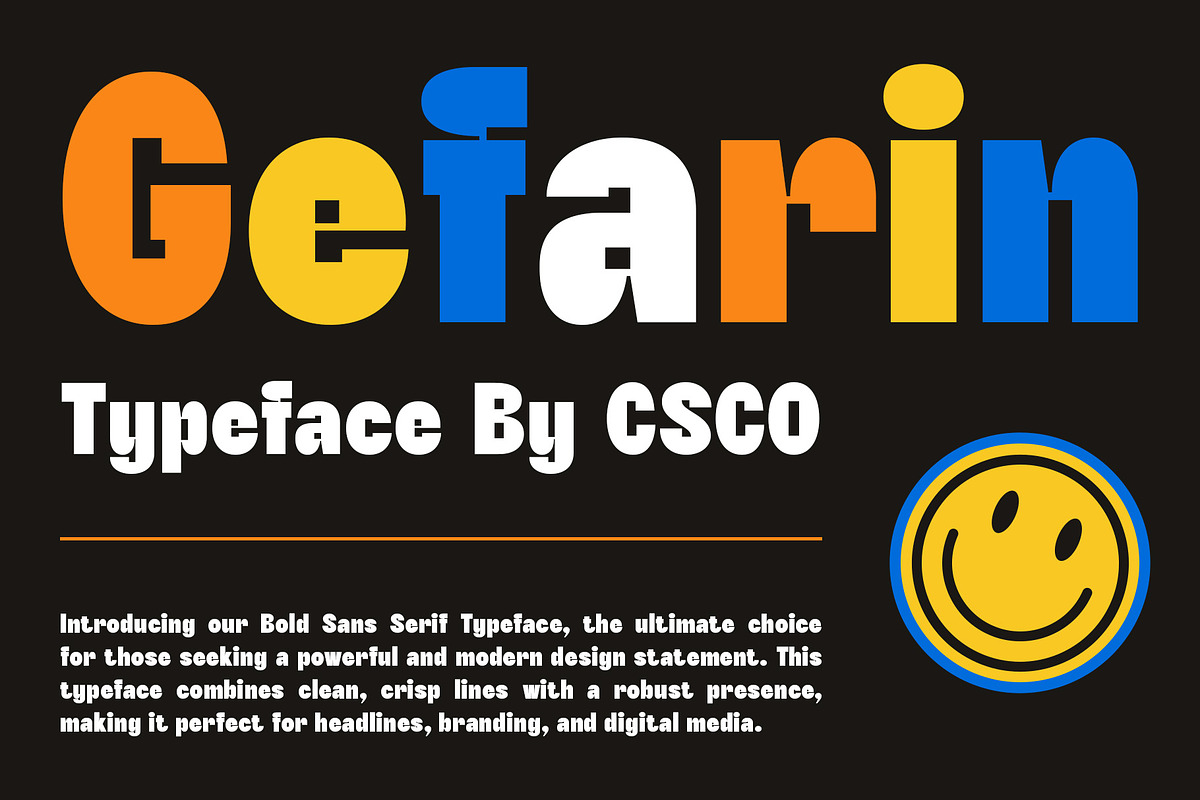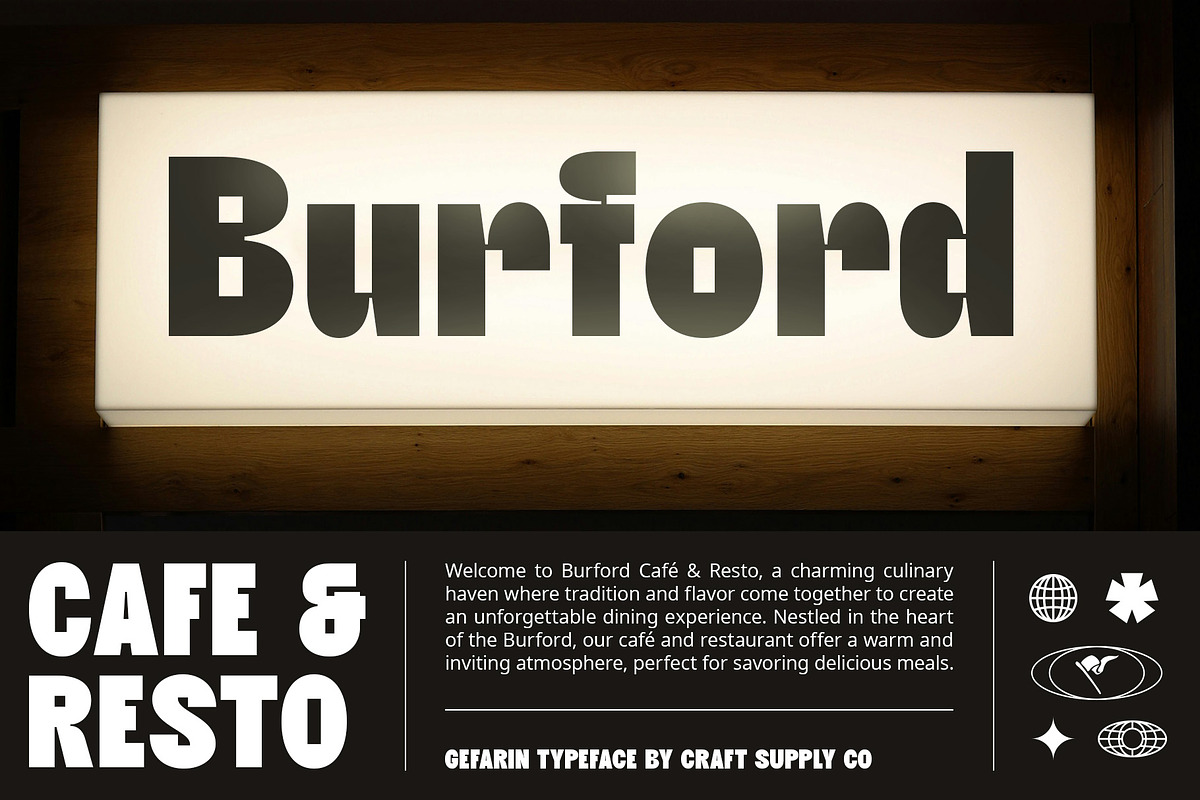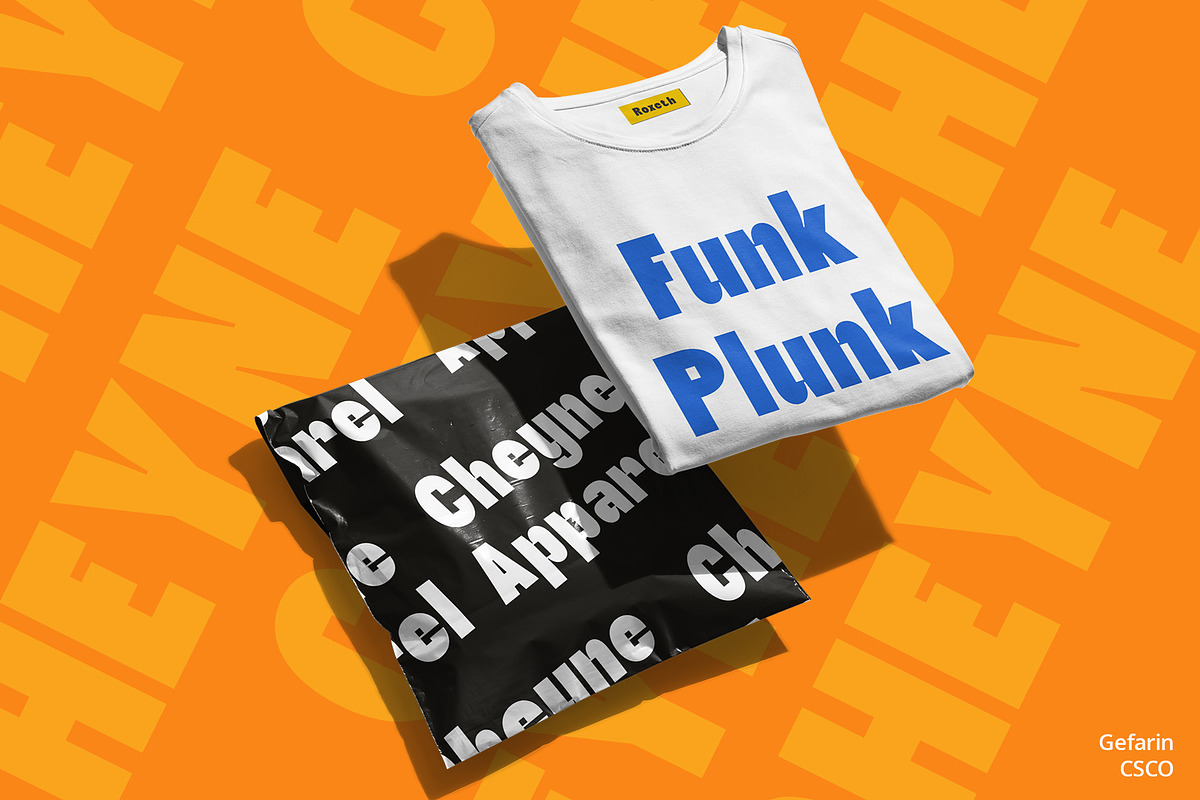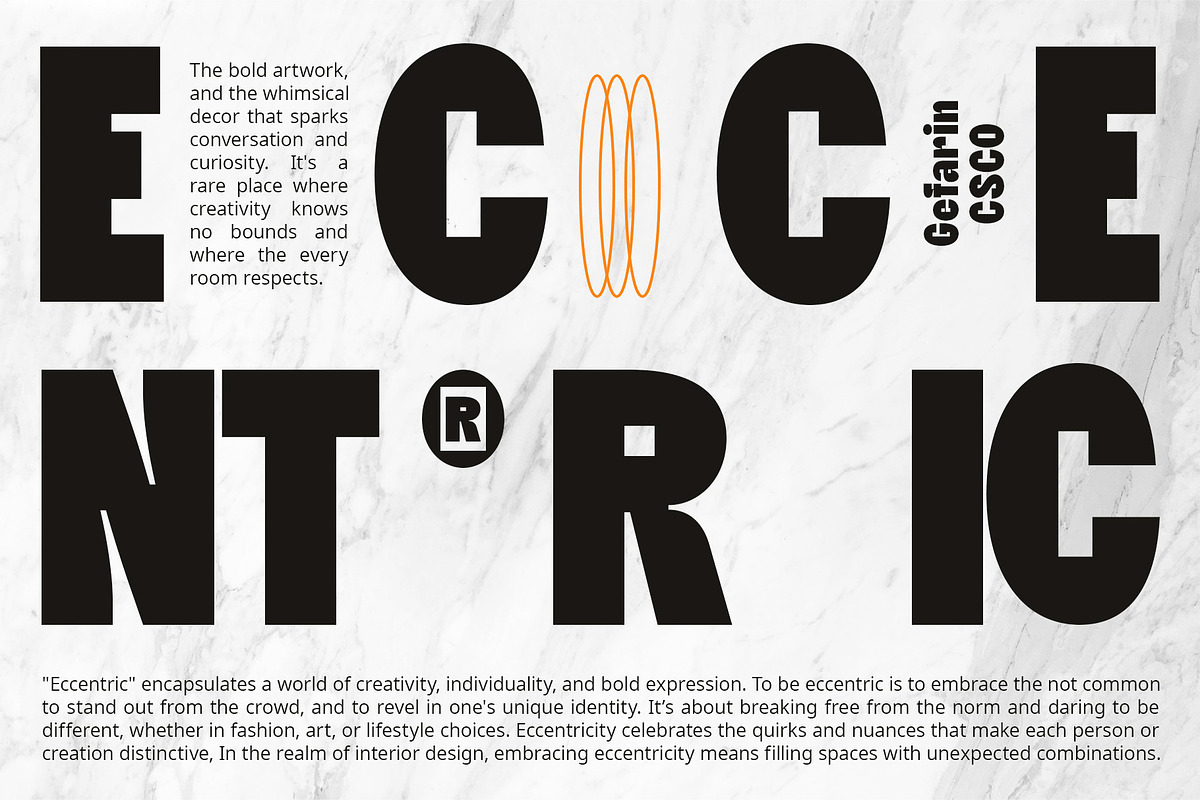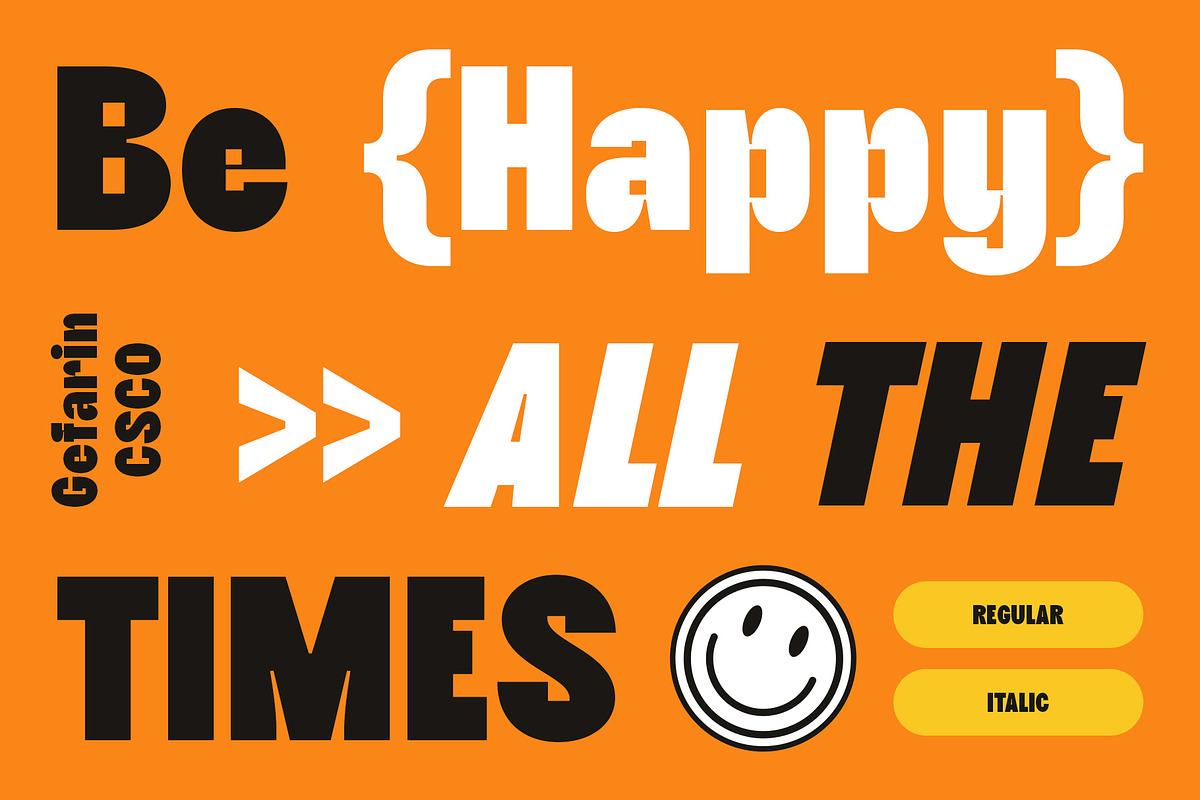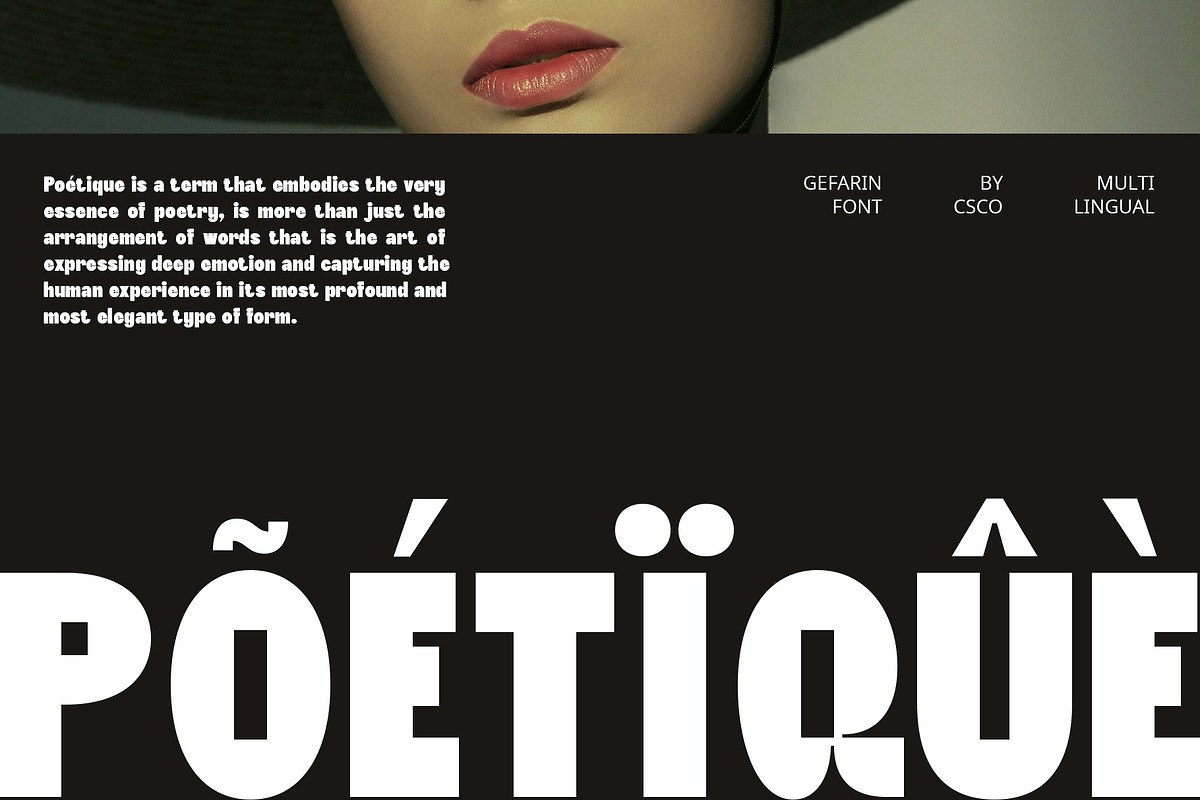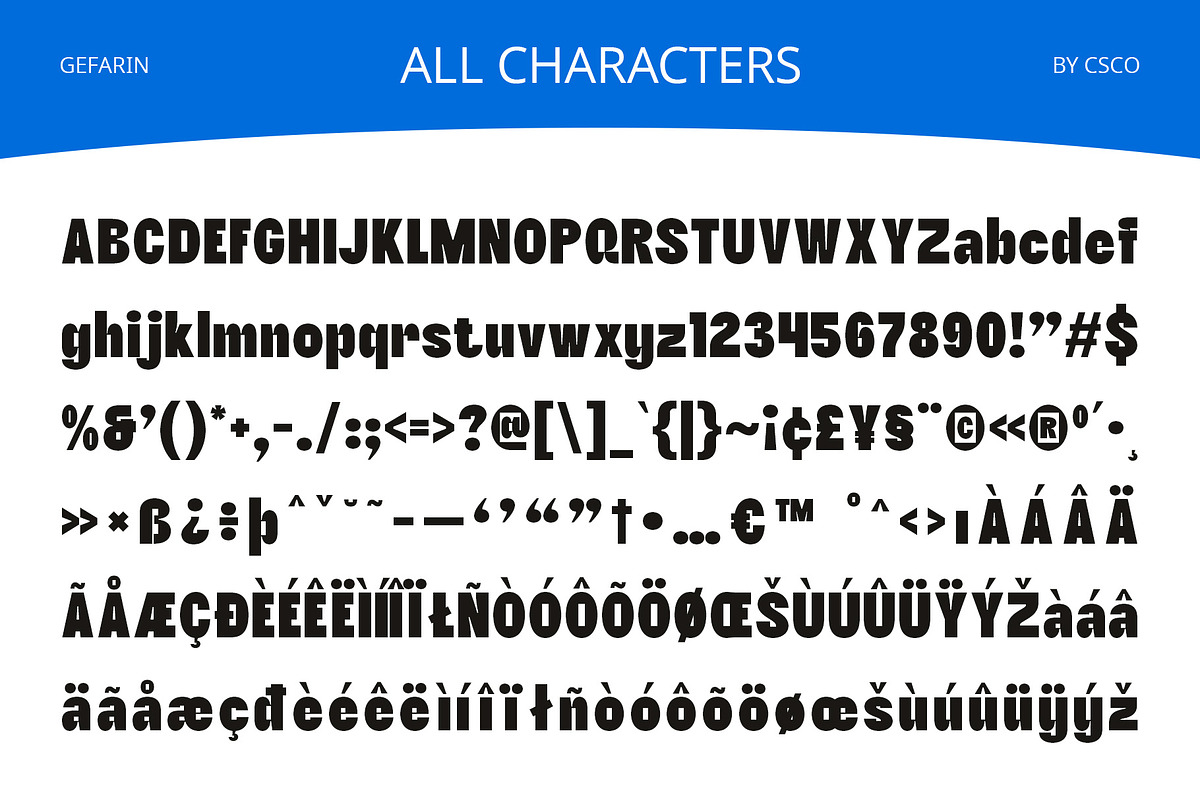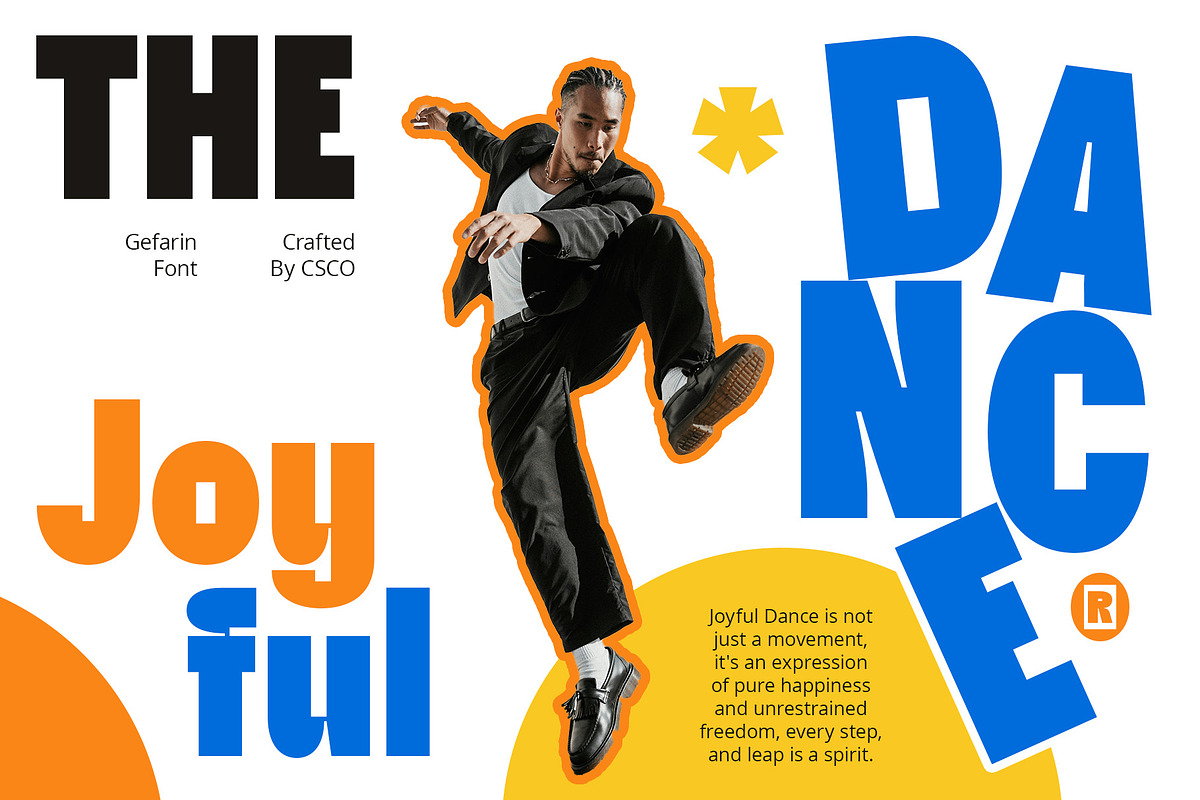
Gefarin – Bold Sans Serif
Gefarin – Bold Sans Serif: Funky Meets Professional
Bold and Funky Sans-serif
Gefarin Font is a bold sans-serif typeface that blends a funky style with professional appeal. Its dynamic design makes it perfect for projects that require both impact and sophistication.
Professional Appeal with a Twist
With its bold, clean lines, Gefarin Font maintains a professional look while adding a twist of funkiness. This unique combination makes it suitable for a wide range of applications, from corporate branding to creative advertising.
Versatile and Eye-catching
Gefarin Font is versatile and eye-catching, making it ideal for headlines, posters, and logos. Its bold design ensures your text stands out, while the funky elements add personality and charm.
Perfect for Dynamic Designs
Elevate your designs with Gefarin Font, where boldness meets funkiness. Its professional yet playful style makes it the perfect choice for projects that need to make a strong and stylish impression.